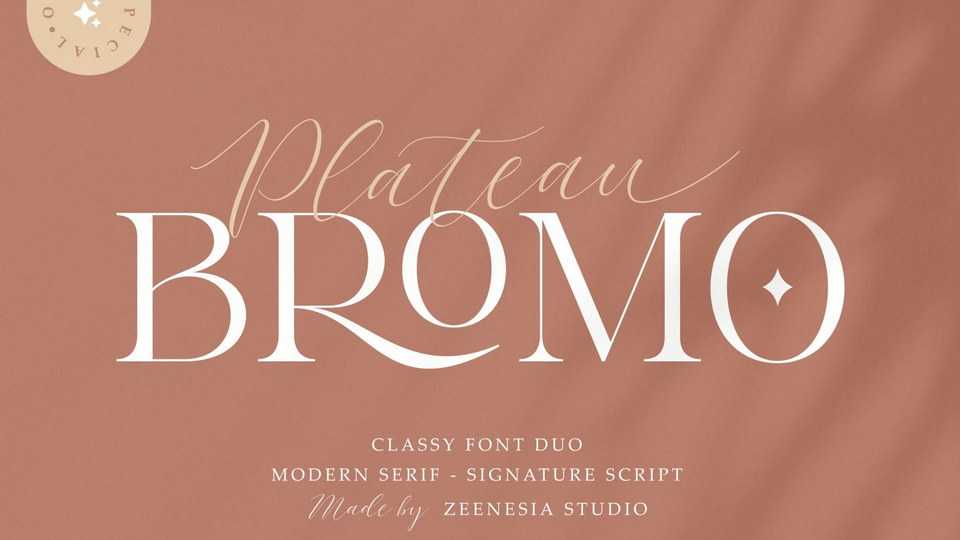
Download Bromo Plateau fonts, a distinct, elegant and spotless signature script and serif typeface. Together or apart, Bromo Plateau fonts are ideal for adding a spectacular touch to your crafts.
Designer: Zeenesia Studio